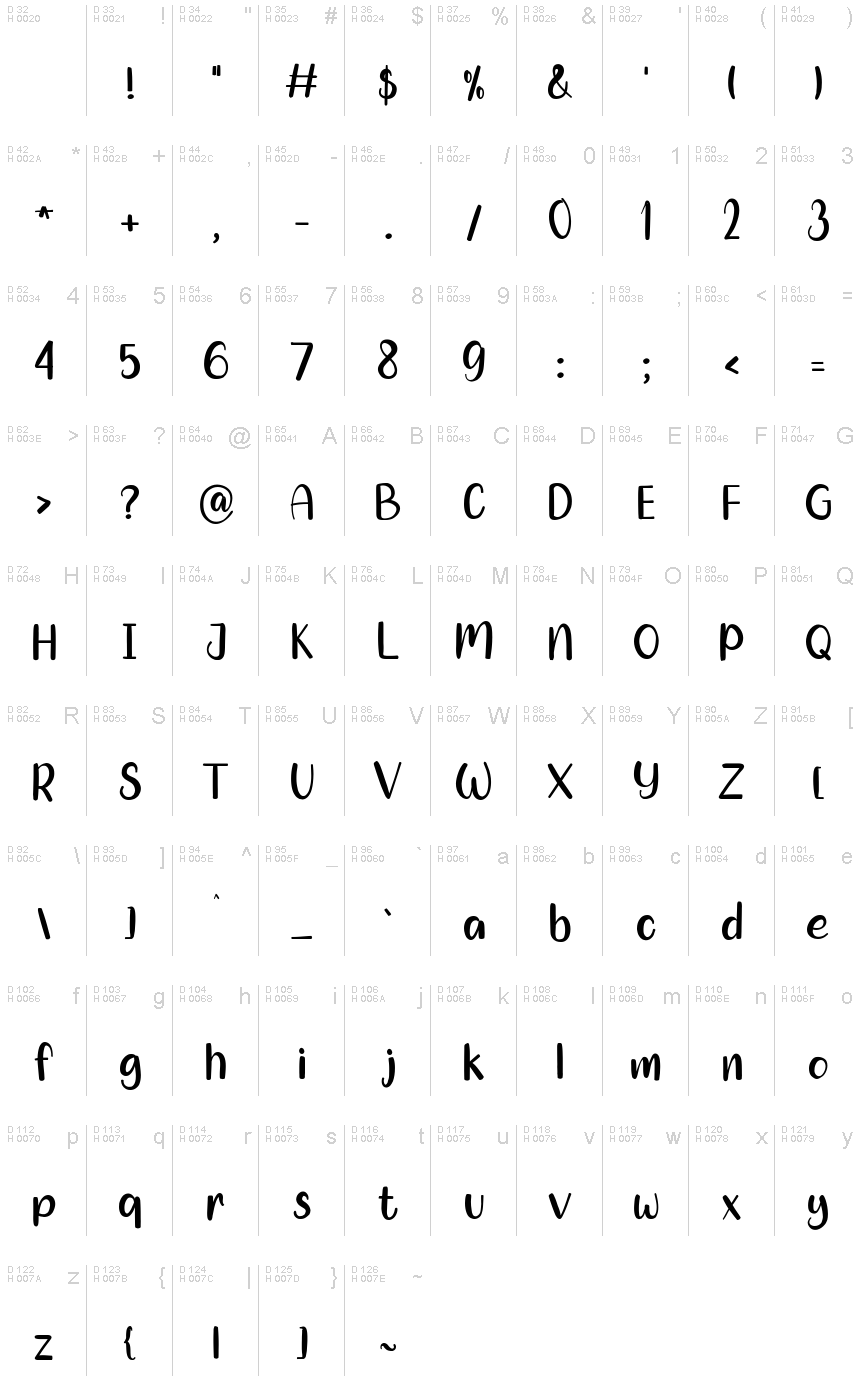
Hanimun
Hanimun, a captivating handwritten font crafted by Goodrichees, exudes a charming, organic appeal that instantly captivates. The fluid strokes and natural variations lend an authentic, hand-lettered essence, effortlessly evoking a sense of warmth and personality. This versatile font seamlessly bridges the gap between modern and vintage sensibilities, making it an ideal choice for a wide range of design applications.
Hanimun's adaptability shines through, lending itself beautifully to branding, packaging, editorial layouts, and personalized communications. Its distinctive character and playful touch make it a compelling selection for crafting impactful headlines, eye-catching logotypes, and heartfelt stationery. Whether embracing a rustic, artisanal aesthetic or infusing a touch of whimsy into digital interfaces, Hanimun's versatility ensures a seamless integration across diverse design contexts.